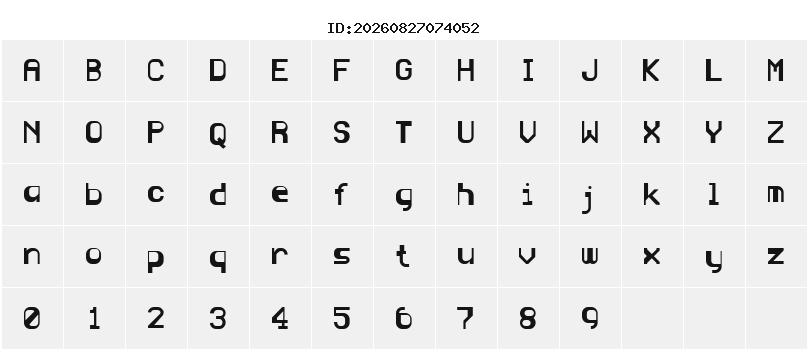
466-CAI978 Preview
• Font Name: 466-CAI978
• Full Font Name: 466-CAI978
About 466-CAI978.ttf
466-CAI978.ttf is a modern, elegant sans-serif font designed for ultimate readability and visual harmony. Perfect for branding, headlines, web design, and print materials.